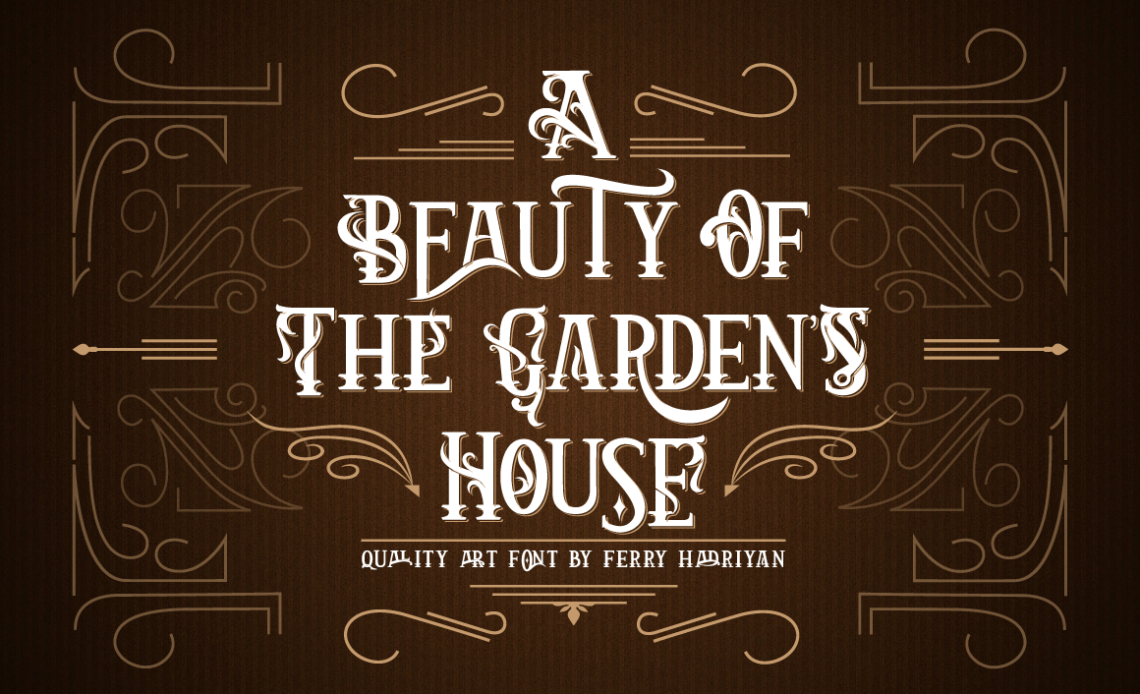
**Arthouse Font: A Vintage Masterpiece for Unforgettable Designs**
Step back in time to the golden age of design with Arthouse Font, a captivating display font that evokes the elegance and charm of the past. Crafted by the visionary artisans at feydesign, Arthouse is the epitome of vintage typography, with its intricate flourishes and timeless appeal.
This stunning font is not just a collection of characters; it's a gateway to a world of creative possibilities. With its vast array of alternates and ornaments, Arthouse empowers you to craft designs that are as unique as your imagination. From retro posters to eye-catching logos and alluring invitations, there are no limits to the magic you can weave with this remarkable font.
Whether you seek to transport your audience to a bygone era or simply add a touch of vintage flair to your projects, Arthouse Font is the perfect choice. Its timeless aesthetic will captivate hearts, evoke fond memories, and leave an unforgettable impression on all who lay eyes upon your creations.
Unleash your inner artist and embark on a journey through time with Arthouse Font, the vintage masterpiece that will elevate your designs to new heights of beauty and sophistication.
**Key Features:**
* Stunning vintage-inspired design
* Perfect for retro designs and projects
* Tons of alternates and ornaments
* Limitless creative possibilities
**Benefits:**
* Create eye-catching designs that stand the test of time
* Evoke a sense of nostalgia and charm
* Showcase your creativity and artistic flair
* Leave a lasting impression on your audience